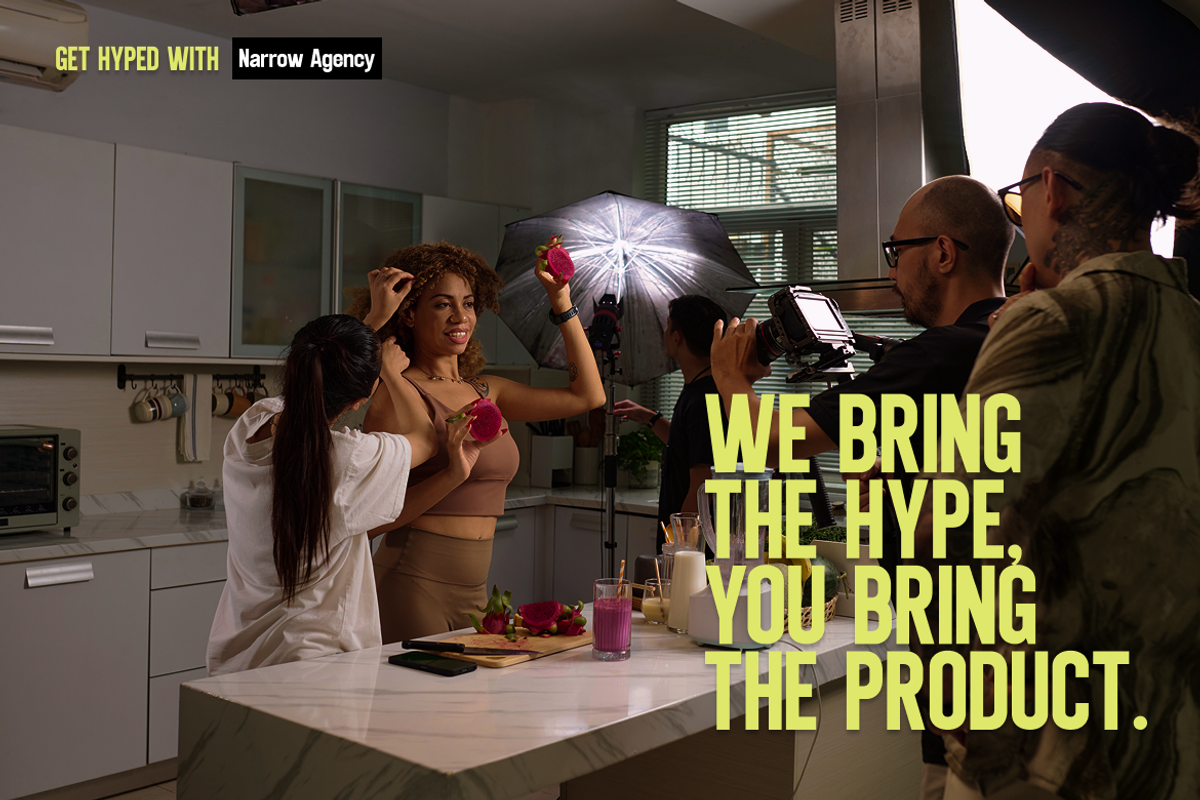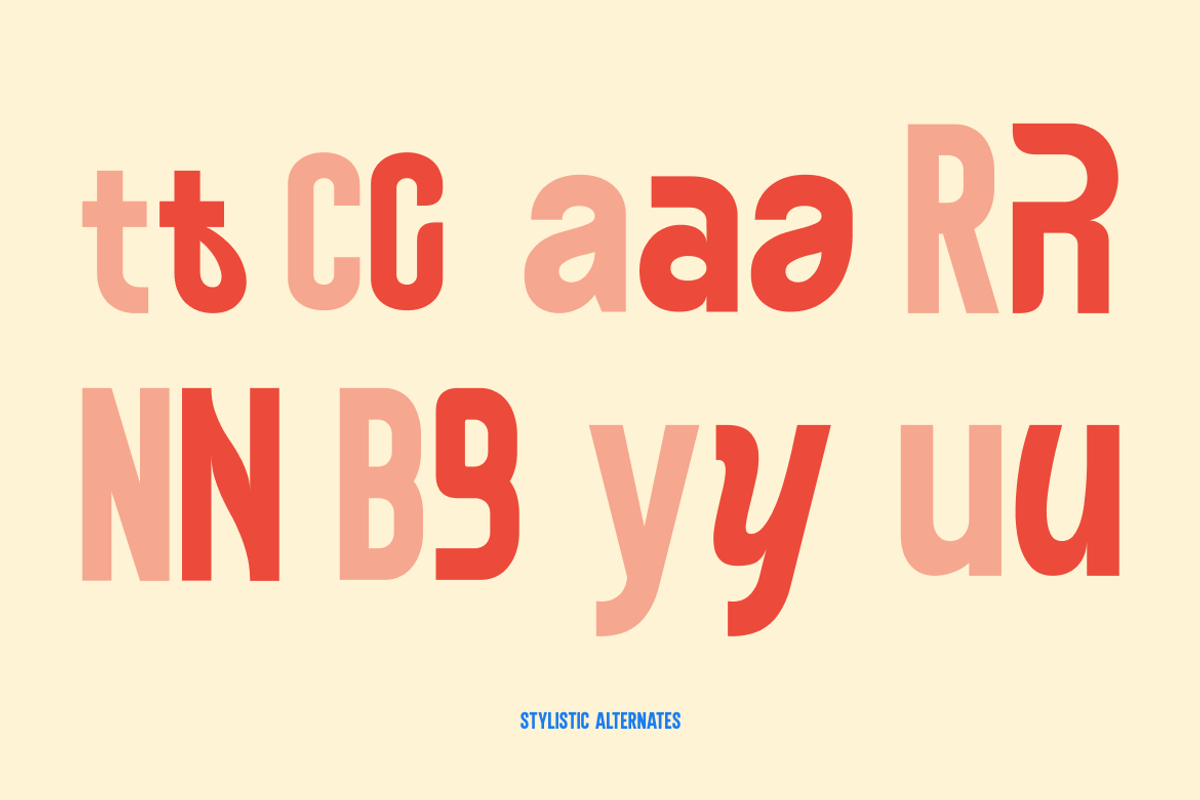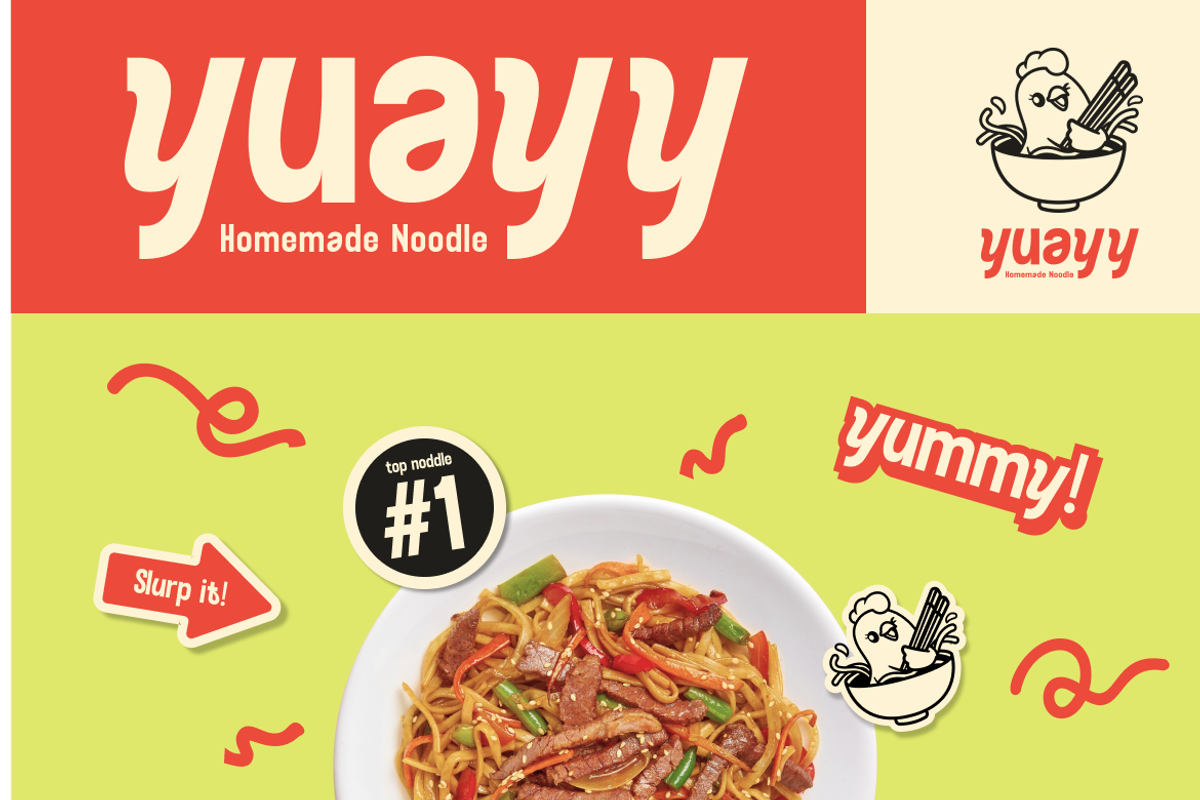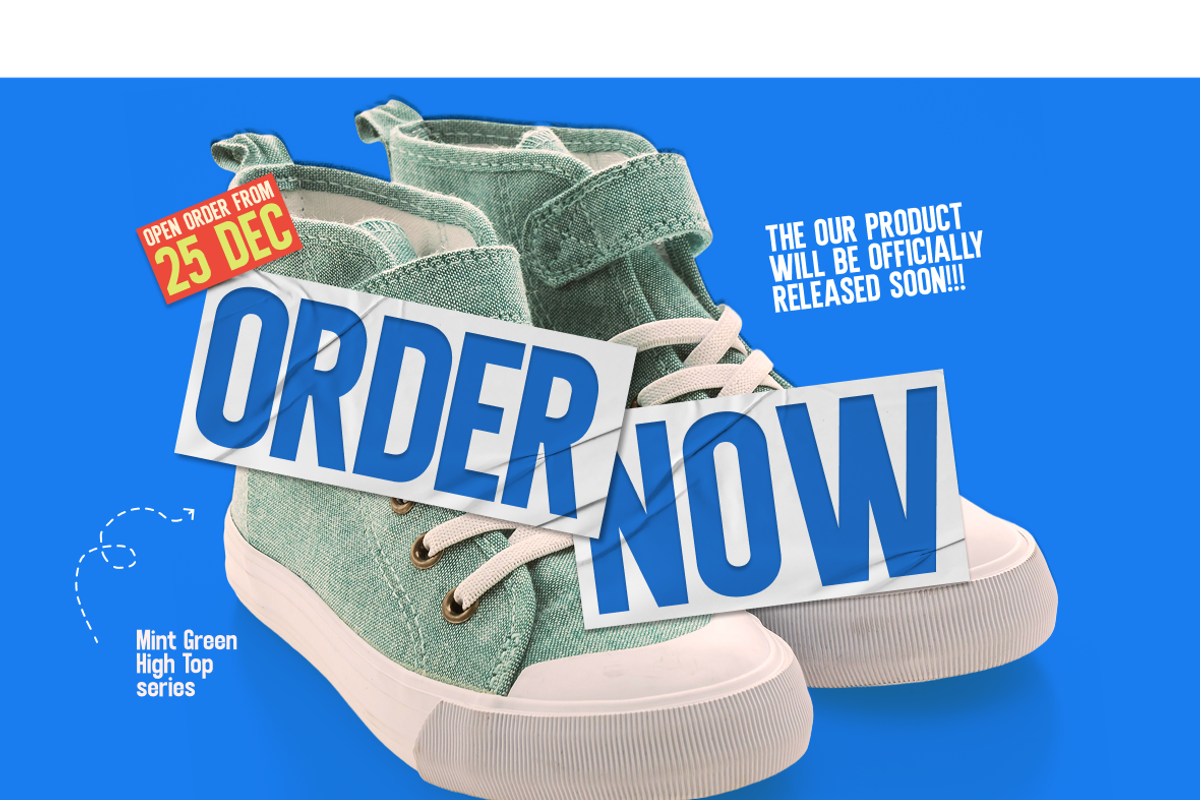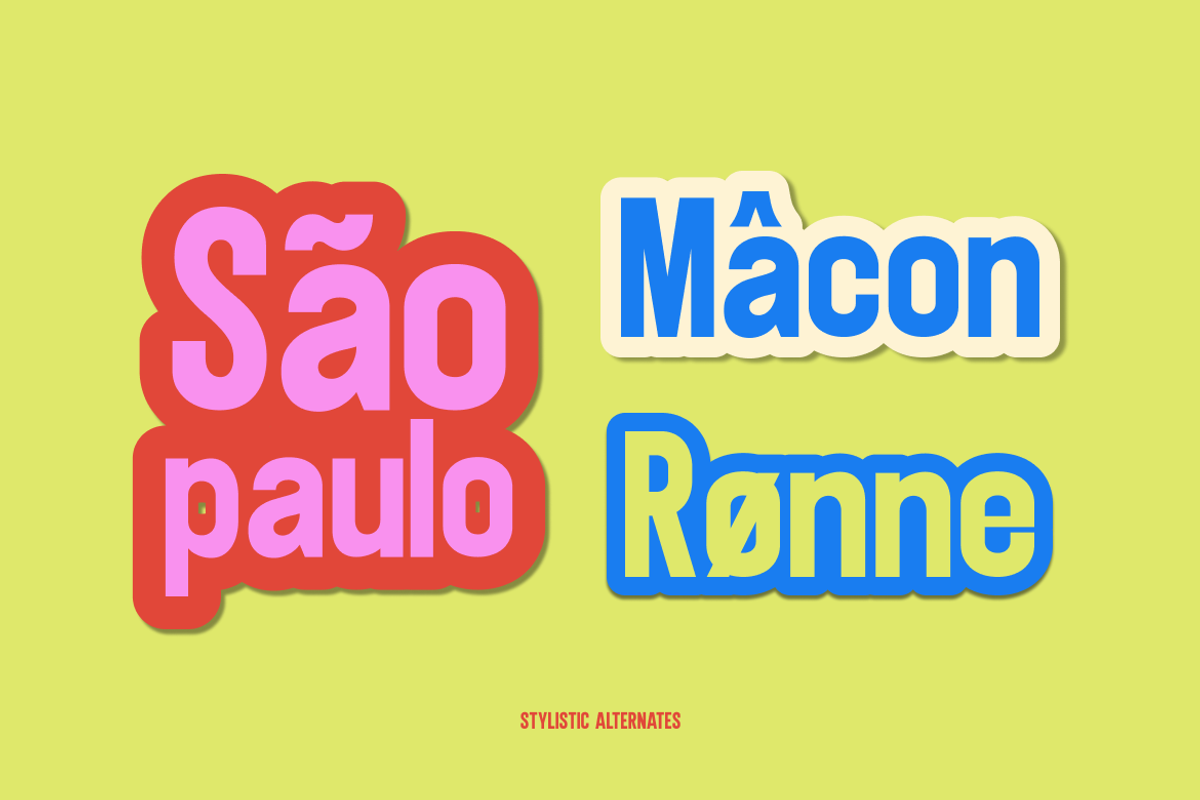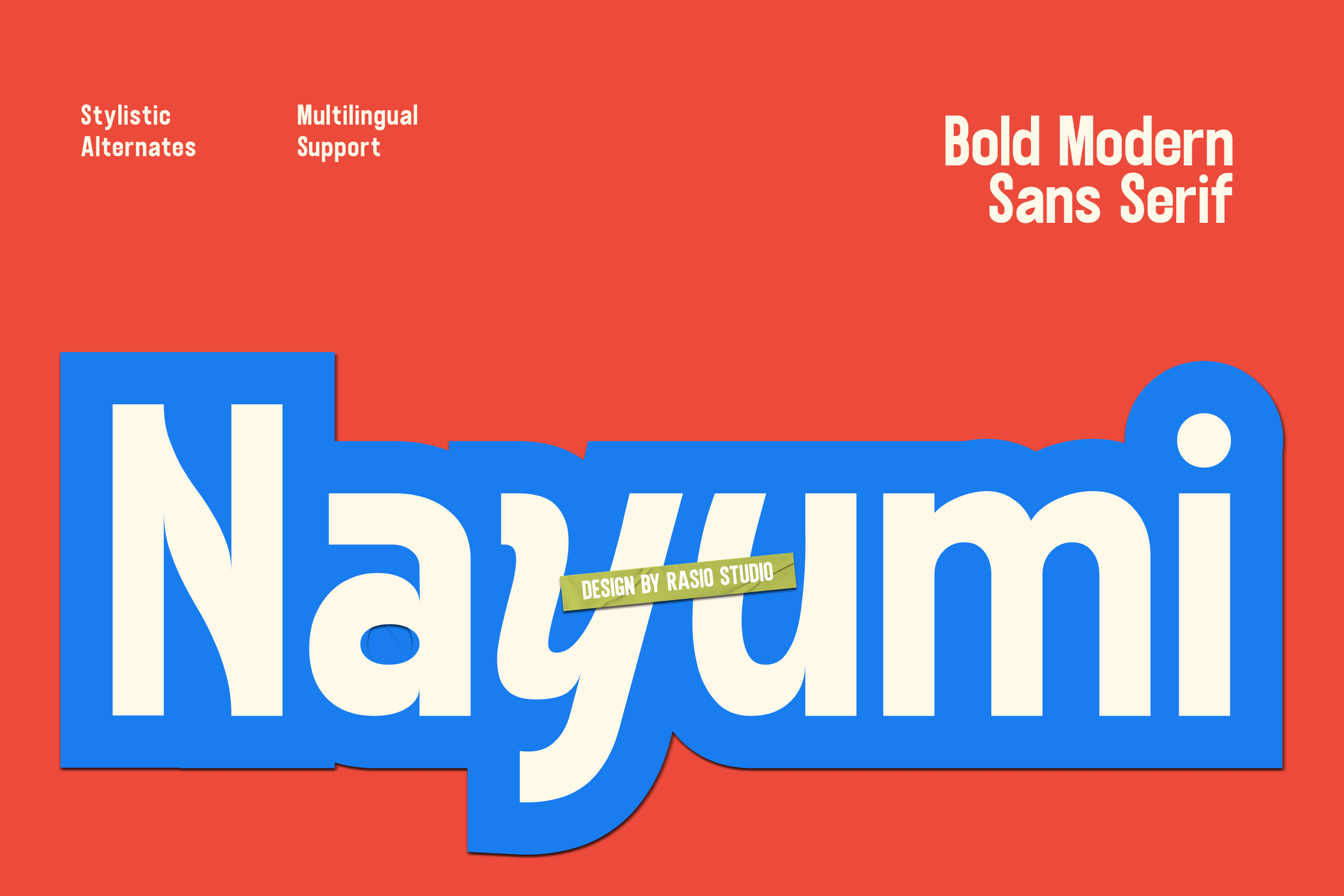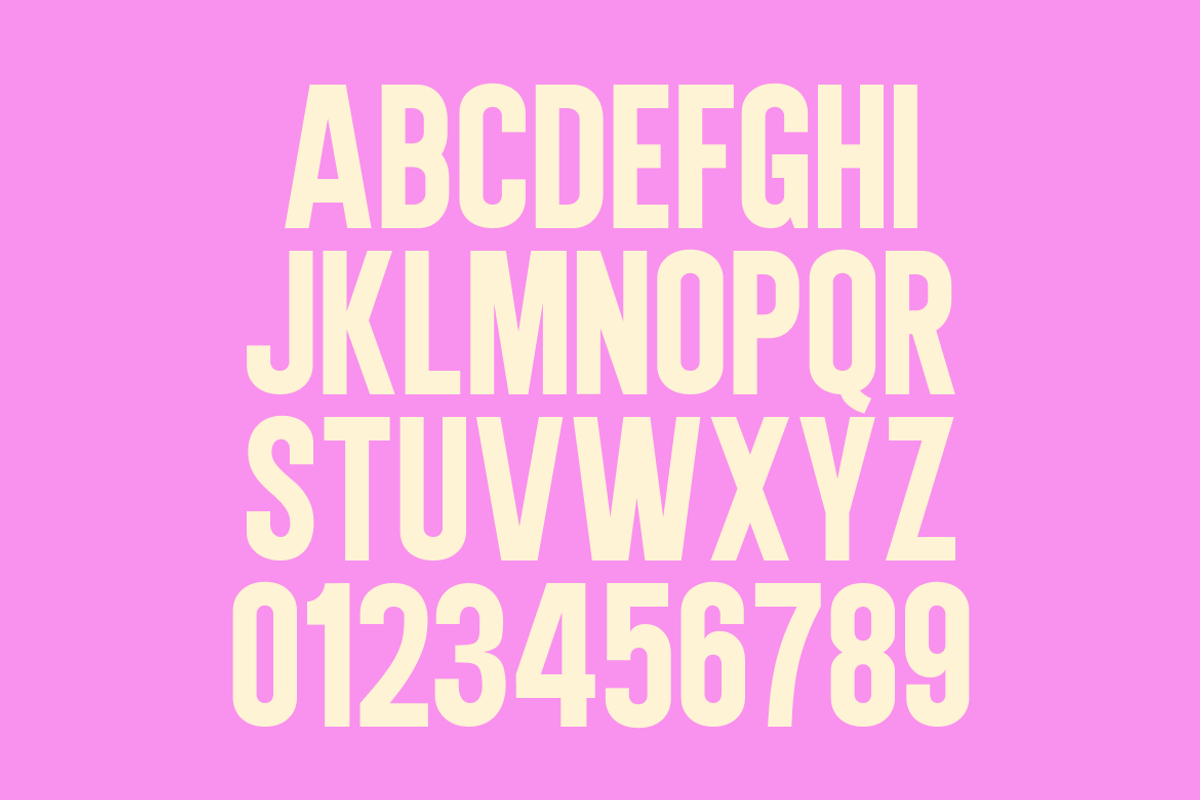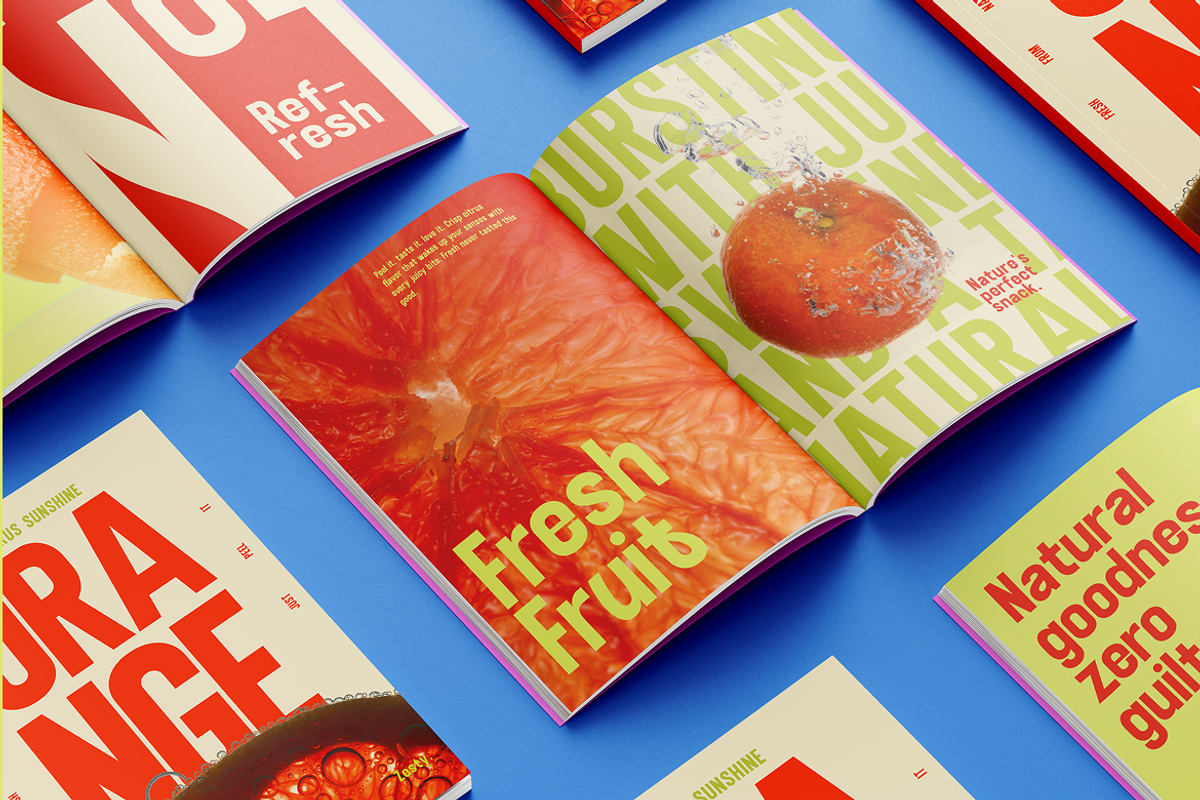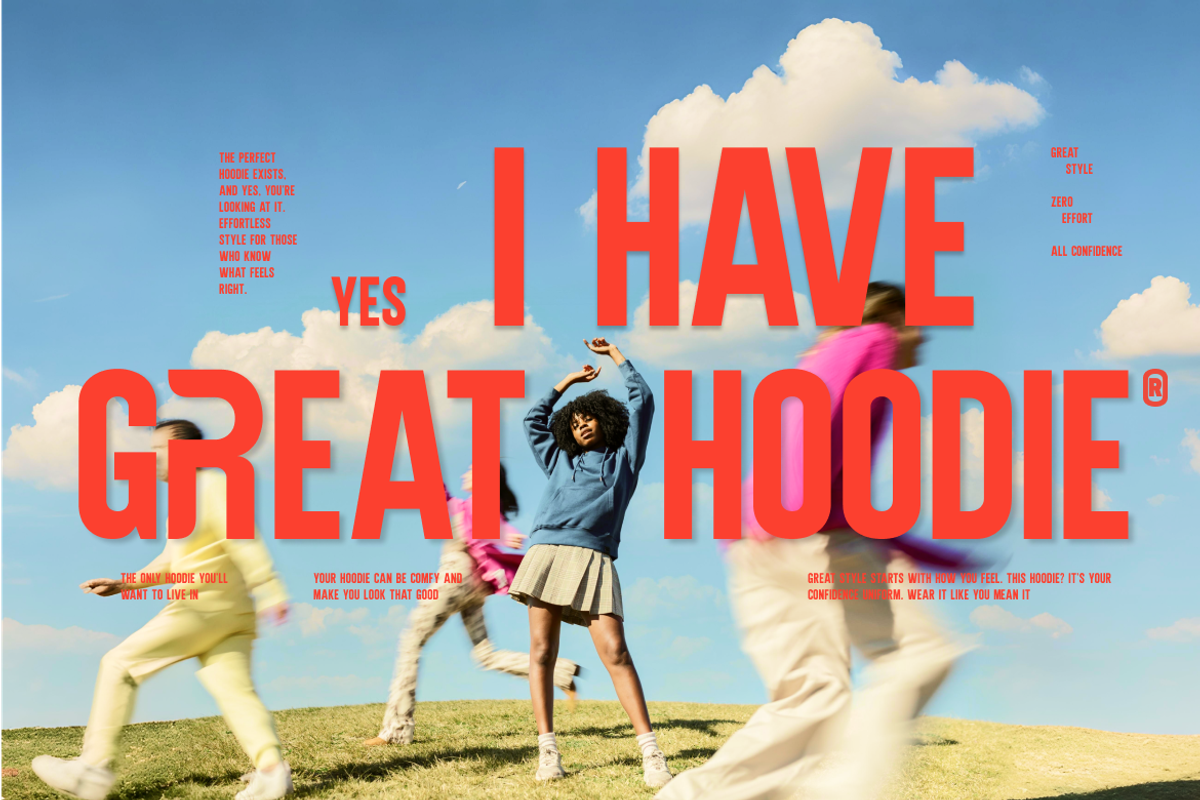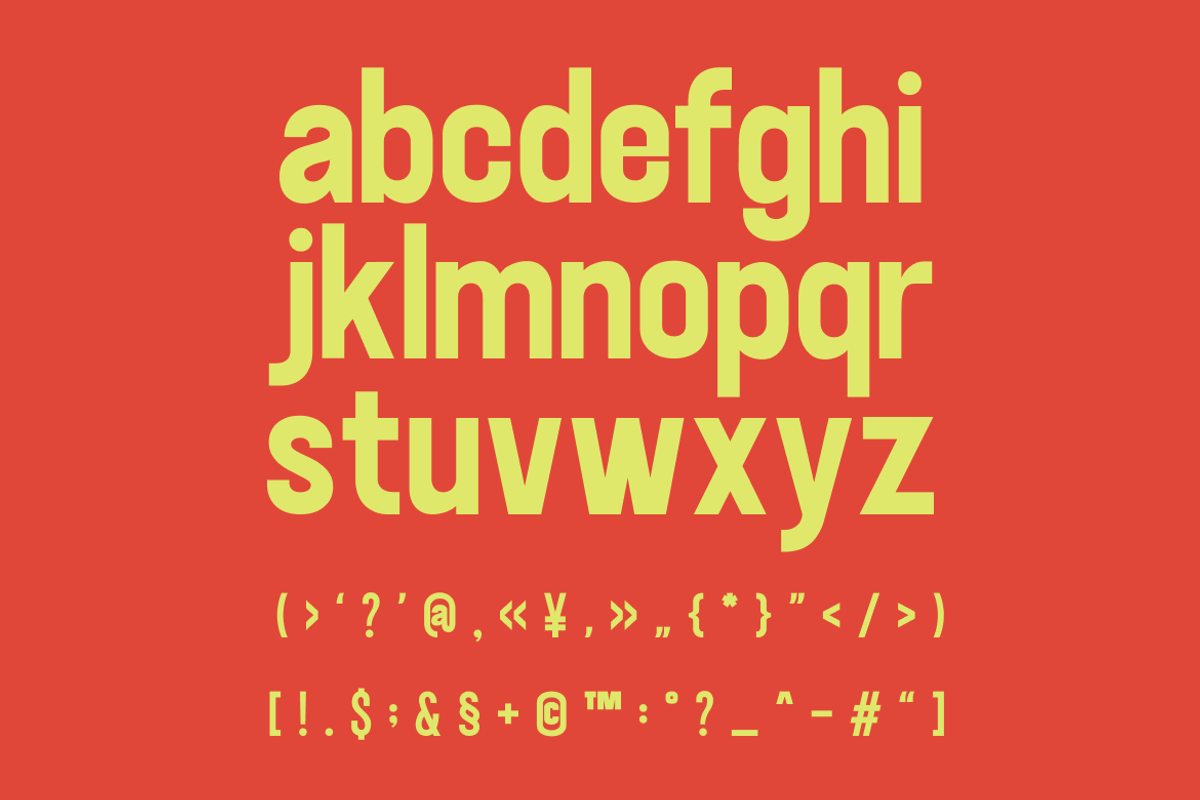
Nayumi Bold Modern Sans Font
Nayumi is a bold modern sans serif typeface designed with strong geometric structure and confident visual presence. Featuring clean lines, smooth curves, and powerful proportions, this typeface delivers a striking yet refined look for contemporary design projects. It includes uppercase, lowercase, numerals, punctuation, stylistic alternates, and multilingual support, making it highly versatile for both branding and editorial use.
Nayumi is highly relevant for modern branding systems, corporate identity design, tech startups, packaging layouts, posters, and social media graphics. Its bold and confident style makes it ideal for businesses seeking a strong visual presence while maintaining a clean and minimalist aesthetic. Suitable for both digital marketing materials and professional print projects.
- Bold modern sans serif construction with strong geometric foundation
- Clean, structured letterforms designed for confident visual impact
- Subtle curve transitions that soften the heavy weight for balance
- Consistent stroke thickness for a powerful and cohesive appearance
- Optimized spacing for strong headline presence and clear readability
- Brand identity systems that need a bold and confident visual presence
- Modern tech startups and digital product branding
- Strong editorial headlines and contemporary magazine layouts
- Product packaging that demands attention and clarity
- Social media graphics and advertising campaigns with high impact